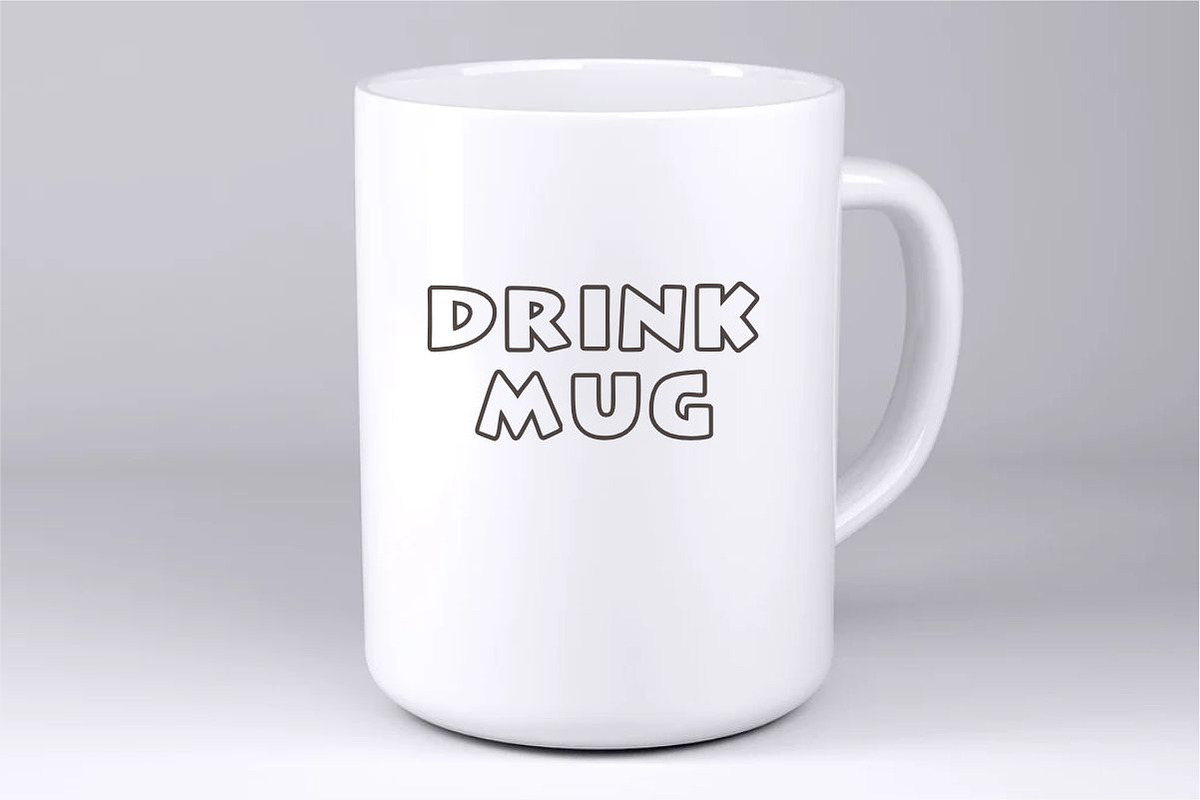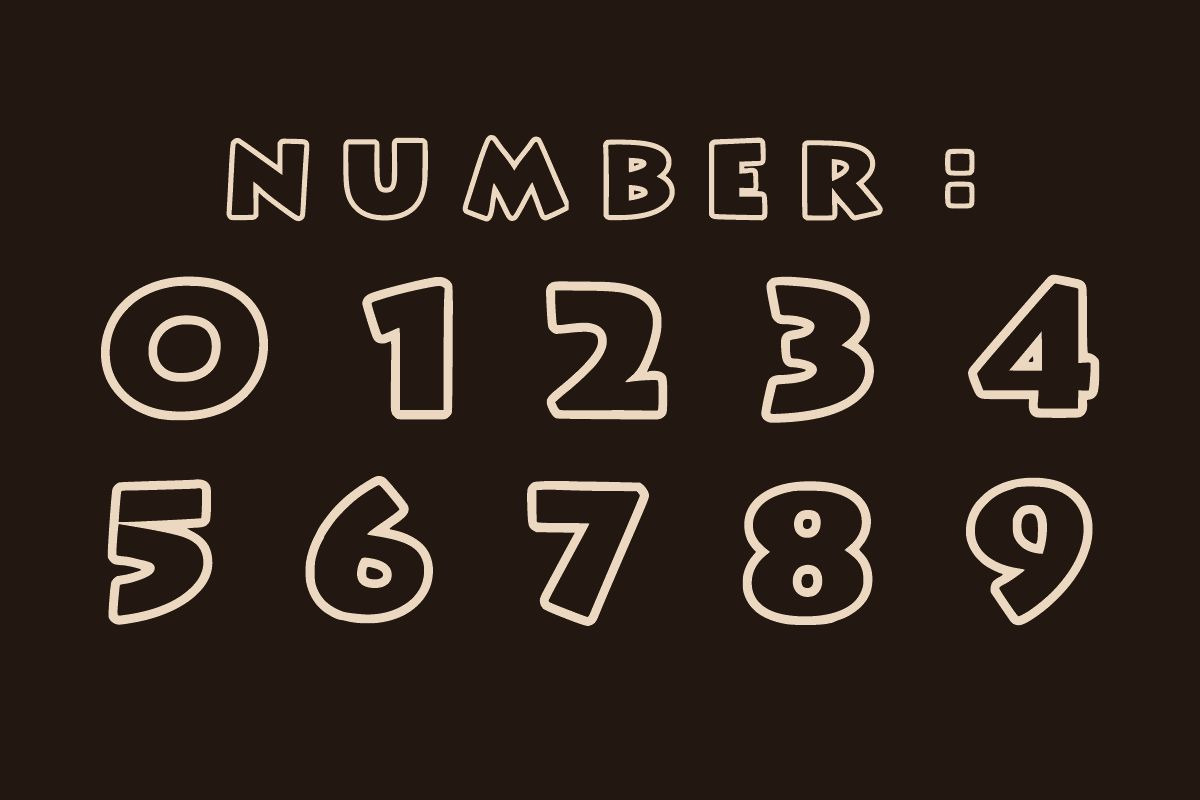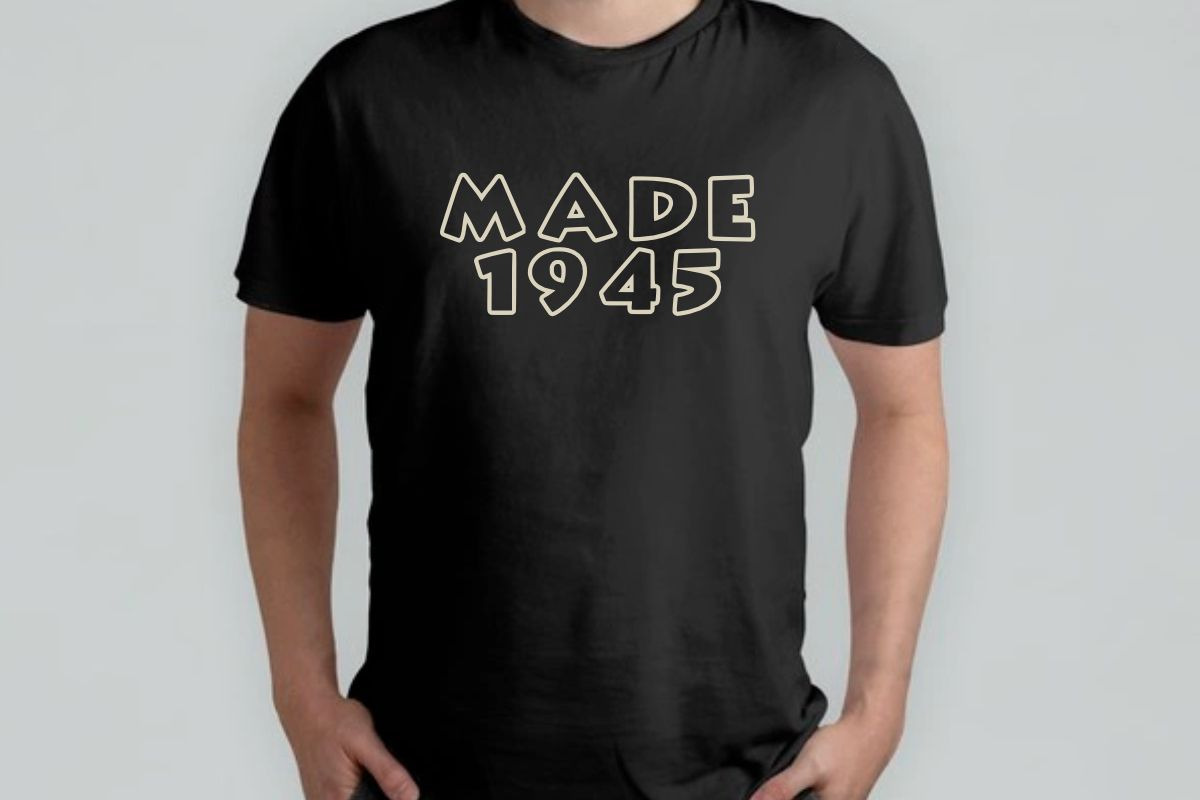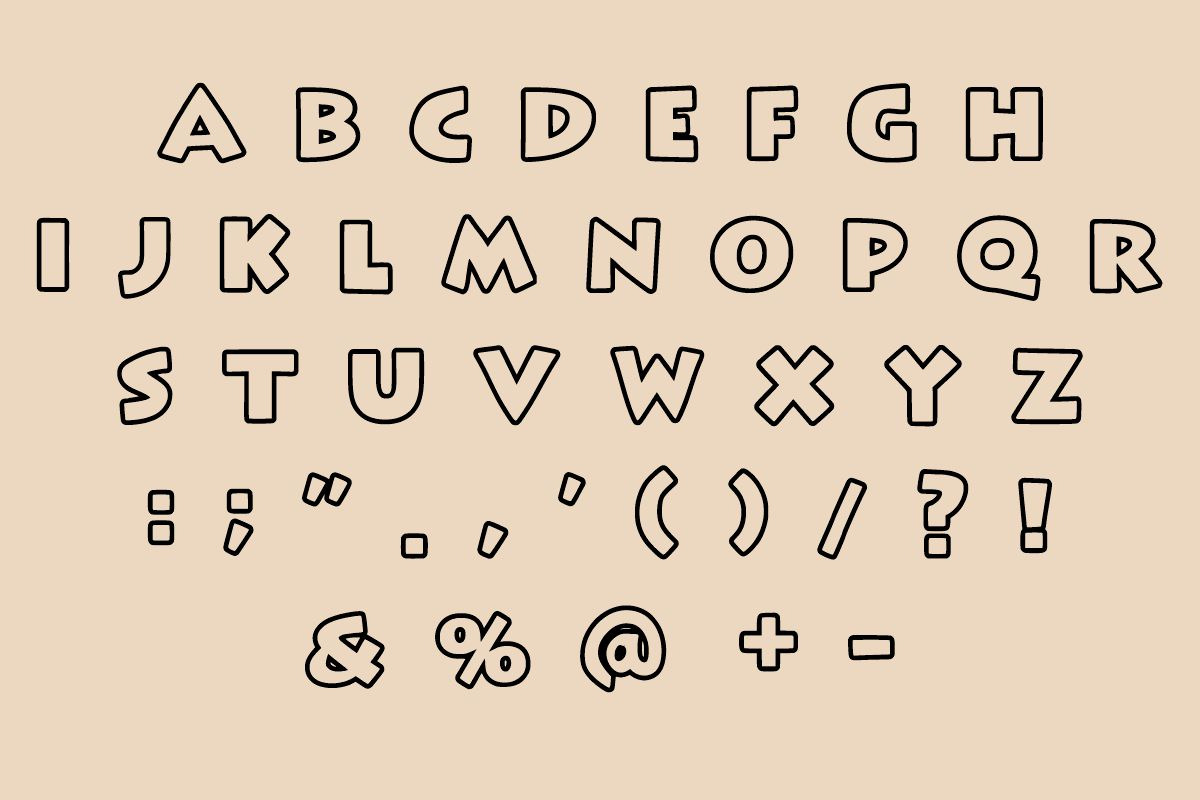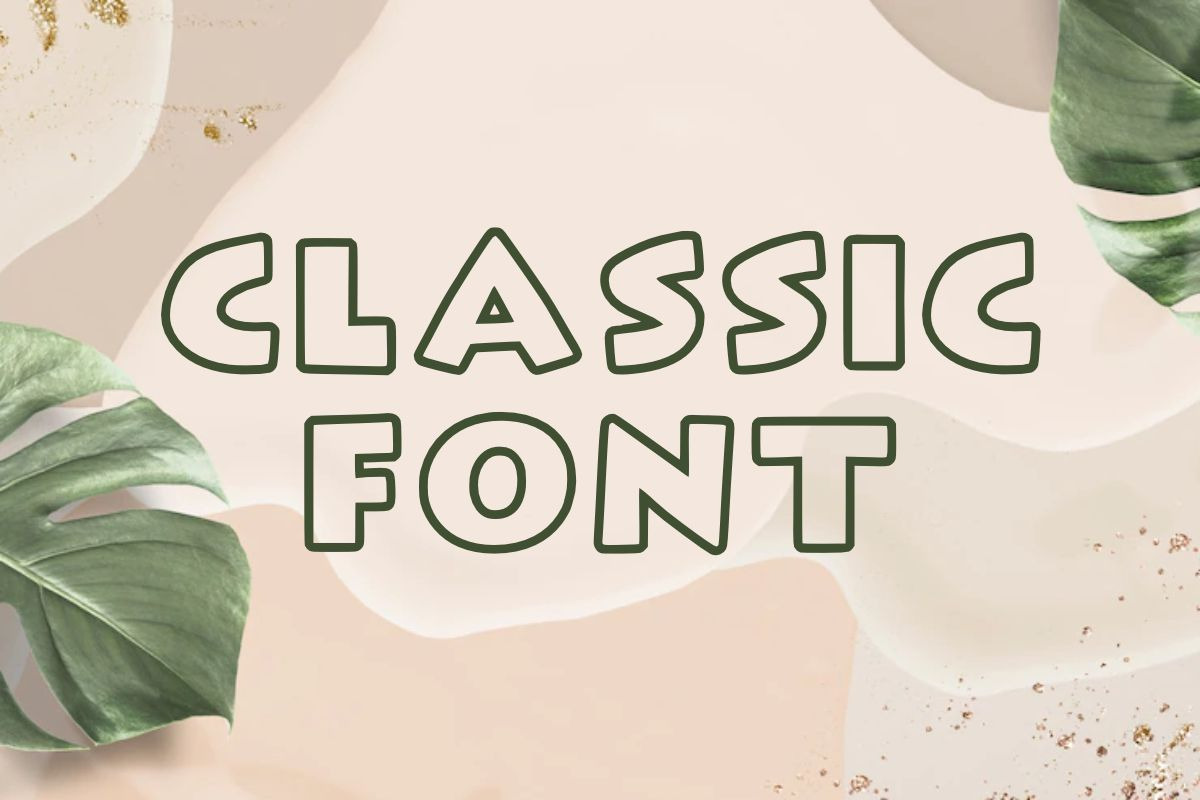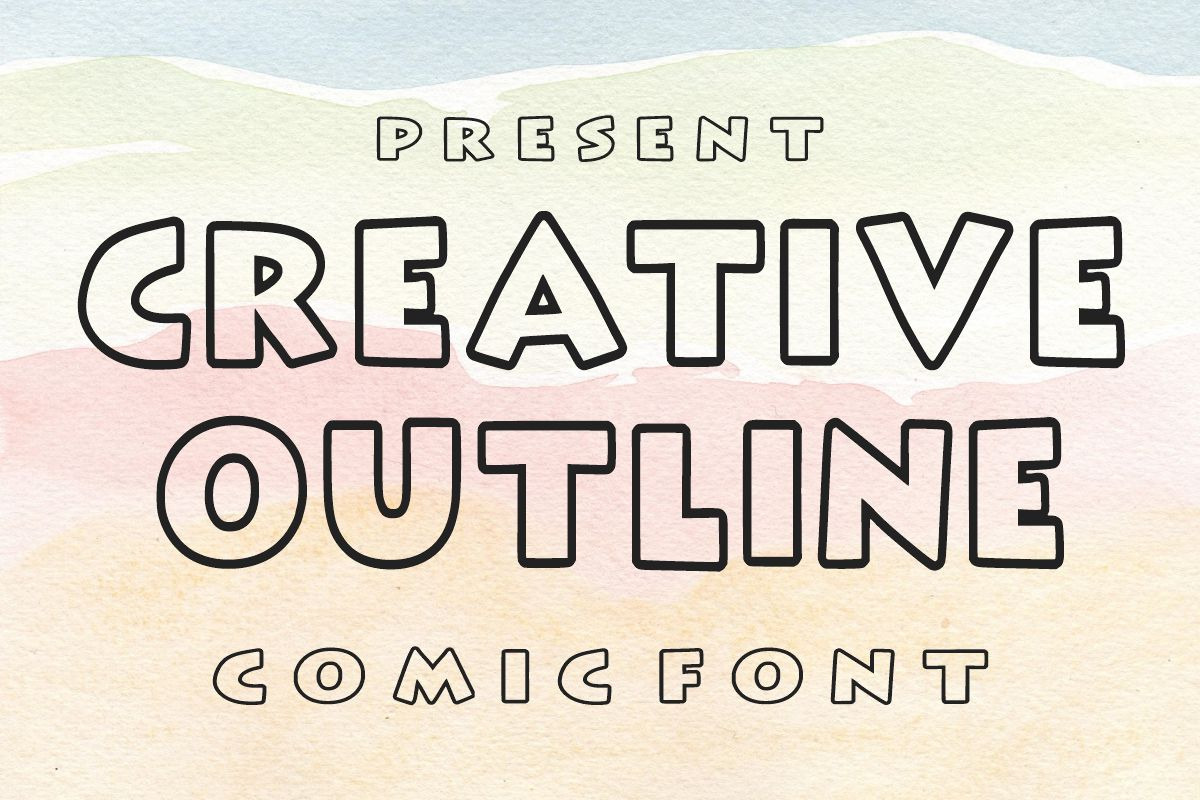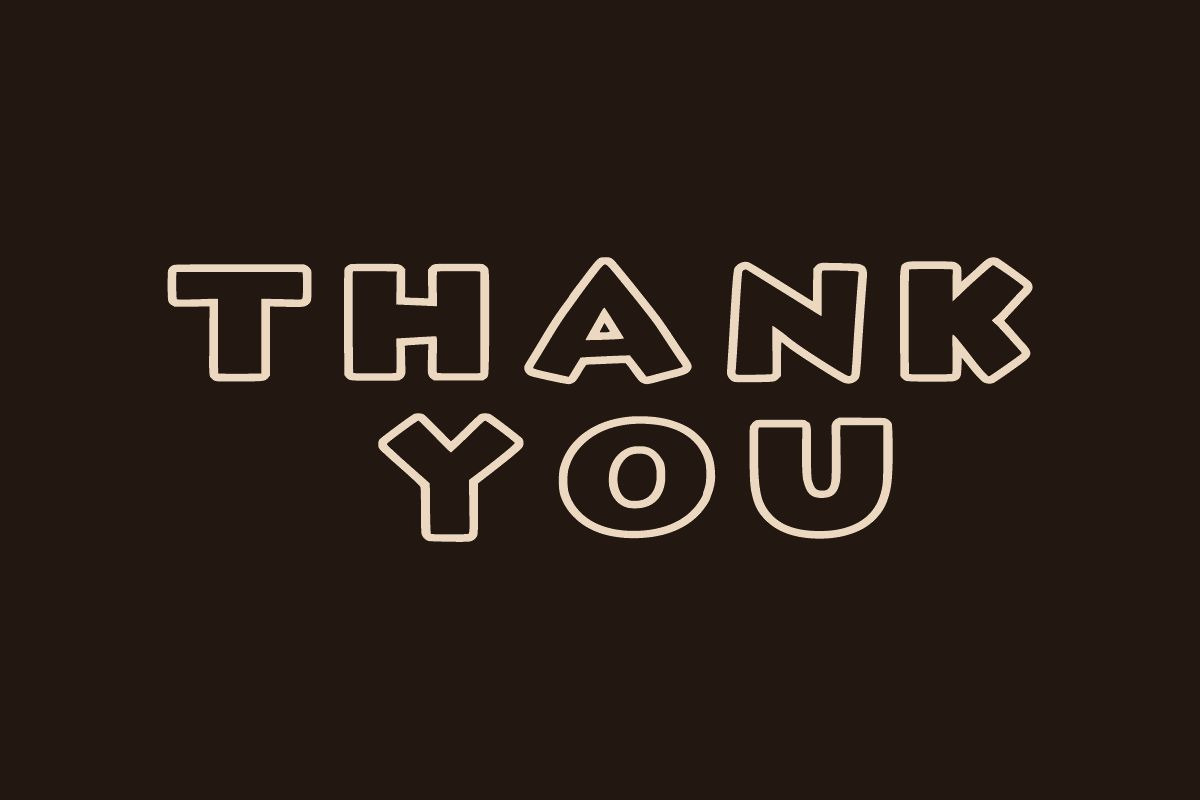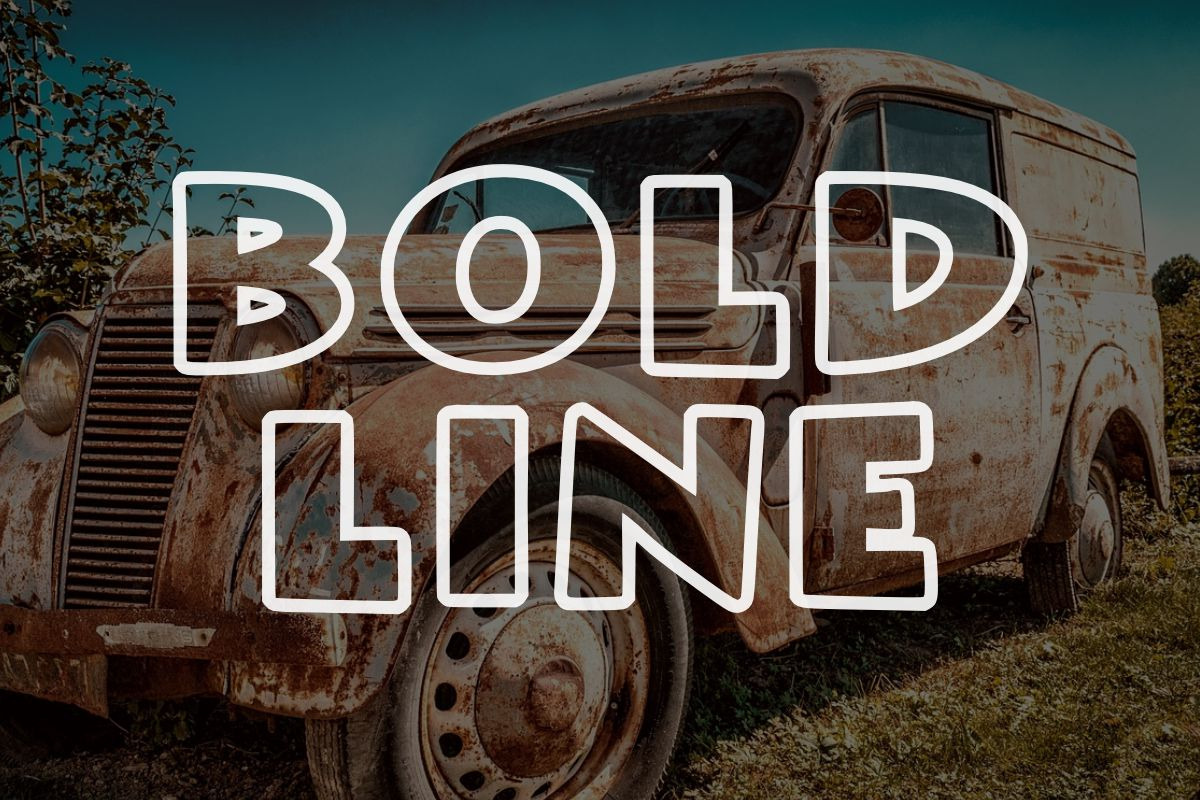
Creative Outline Font
Creative Outline is an outline font that is bold, childish, easy-to-read and conveys impeccable friendliness. Whether you’re using it for crafts, digital design, presentations, or greeting cards, this font has the potential to become your favorite go-to font, no matter the occasion!